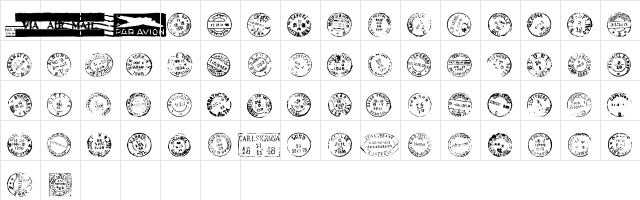
LD Postmarks NZ Regular
Design Context for LD Postmarks NZ Typeface
LD Postmarks NZ is a composed and adaptable typeface that performs quietly and consistently across a wide range of design contexts.